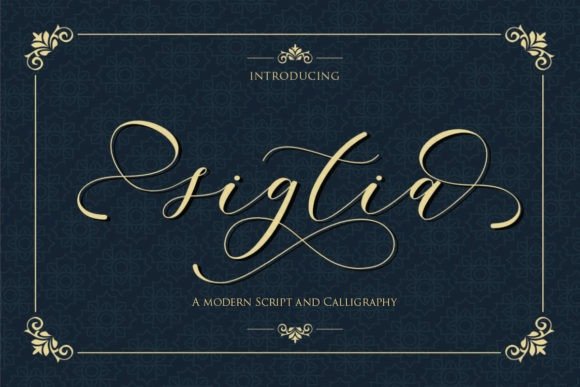
Sigtia Calligraphy Font Free
Sigtia Calligraphy Font is a script typeface with a natural handwritten feel. It has lovely ligatures and alternates that are perfect for any creative design. It is a bold script from the designer Gilar Studio. This font is a unique, cute and Lovely Script.